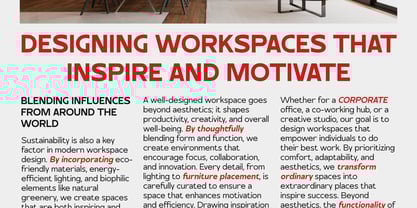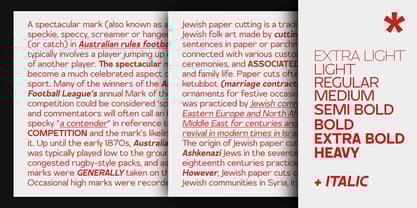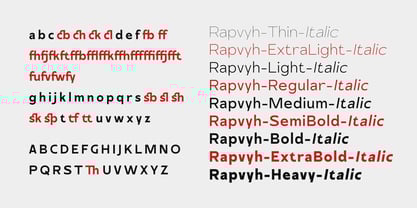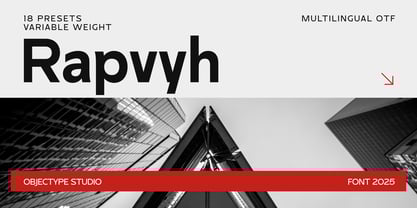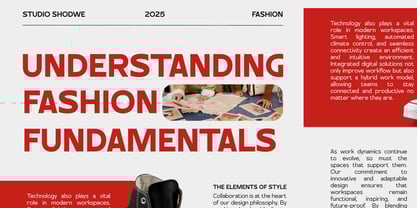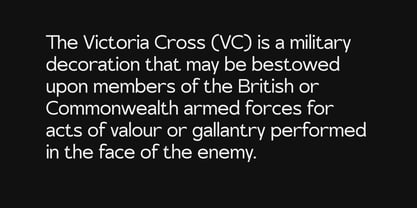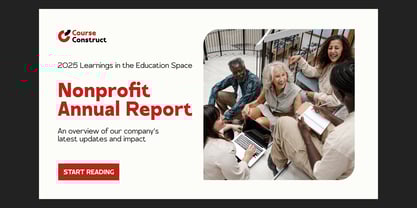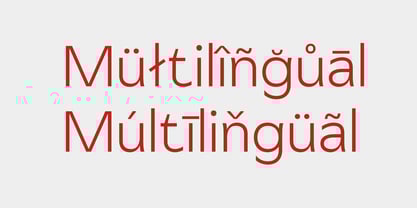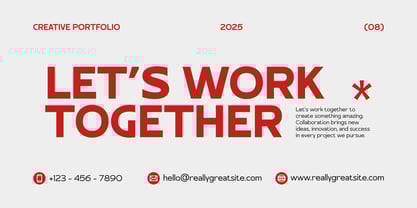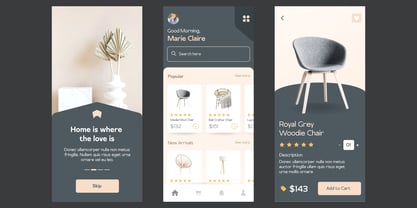
Rapvyh Variable
von Objectype
Die Schriftfamilie Rapvyh Variable wurde von Candi Erwanto entworfen und von Objectype veröffentlicht. Rapvyh Variable enthält 1 Stile.
Rapvyh – A Modern Sans Serif with a Futuristic Touch
Rapvyh is a sans serif typeface that blends modernity, futurism, and minimalism into a bold and innovative design. With creative letter cuts and well-balanced geometric proportions, Rapvyh delivers a professional aesthetic without compromising readability.
Key Features:
• Comes in 18 styles, including italic versions, for versatile design use.
• Features unique ligatures that enhance typographic expression.
• Precision kerning and metrics ensure a refined and balanced look.
• Supports multiple languages for global accessibility.
• Optimized for various media, including dark backgrounds.
Ideal for:
• Branding and logos, creating a sleek and modern identity.
• Posters and digital media, conveying a futuristic and innovative vibe.
• Professional print materials, adding an elegant corporate touch.
• Tech-themed designs, perfect for startups, AI, and digital projects.
With its well-balanced weight distribution, striking geometric forms, and design flexibility, Rapvyh is the perfect choice for designers aiming to showcase progress and boundless creativity.
Designer: Candi Erwanto
Herausgeber: Objectype
Foundry: Objectype